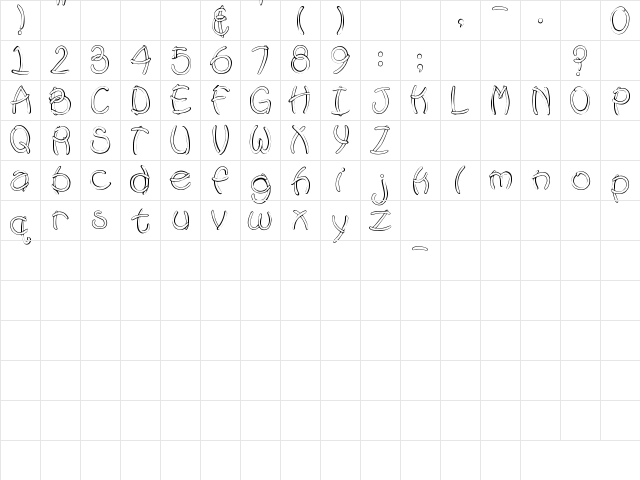
SBC Pool Noodle Outline Regular
Design Context for SBC Pool Noodle Outline Typeface
SBC Pool Noodle Outline brings ornamental detail and strong personality to headlines and identities, where visual impact matters more than quiet functionality.
Font Pairing: Pair with a clean neutral sans-serif for body copy to let SBC Pool Noodle Outline's character lead without overwhelming the composition.
Pro Tip: Use SBC Pool Noodle Outline exclusively at display sizes — it was designed to be seen, not read at length. Let a neutral companion handle body copy.